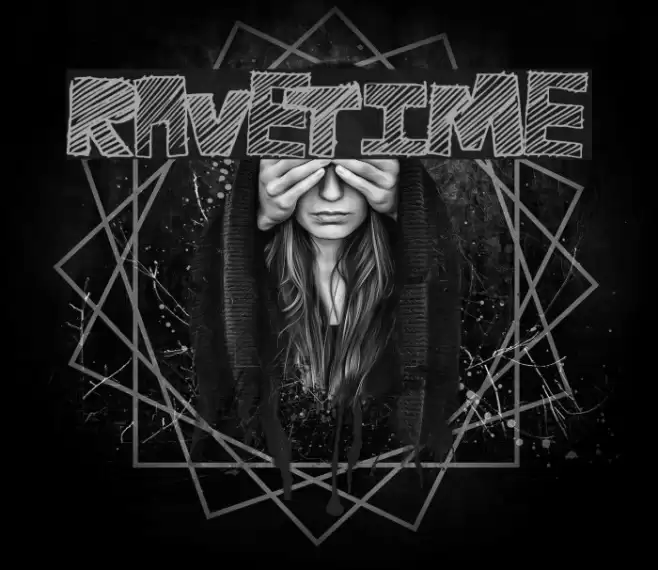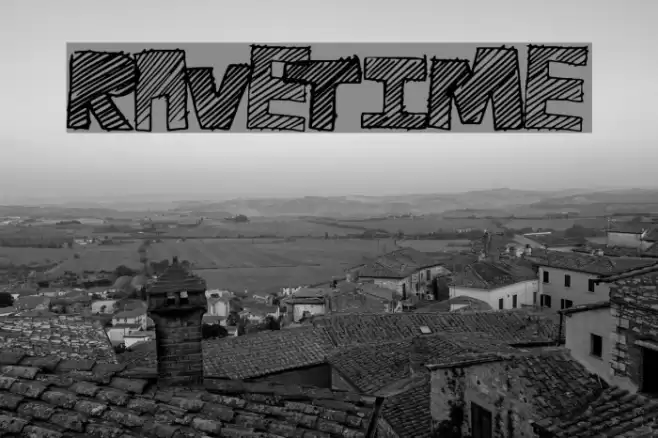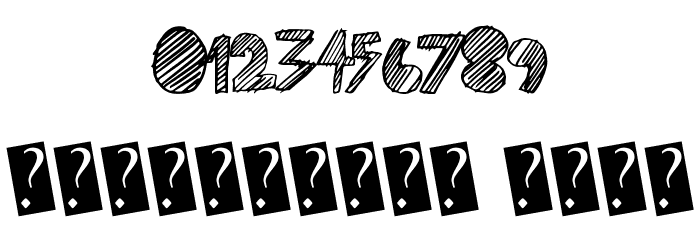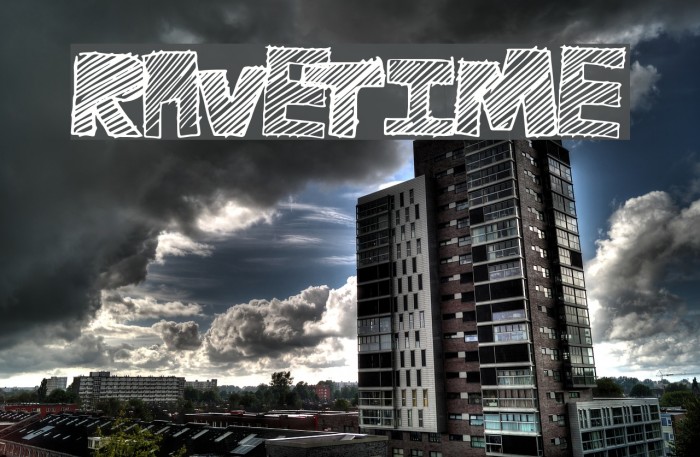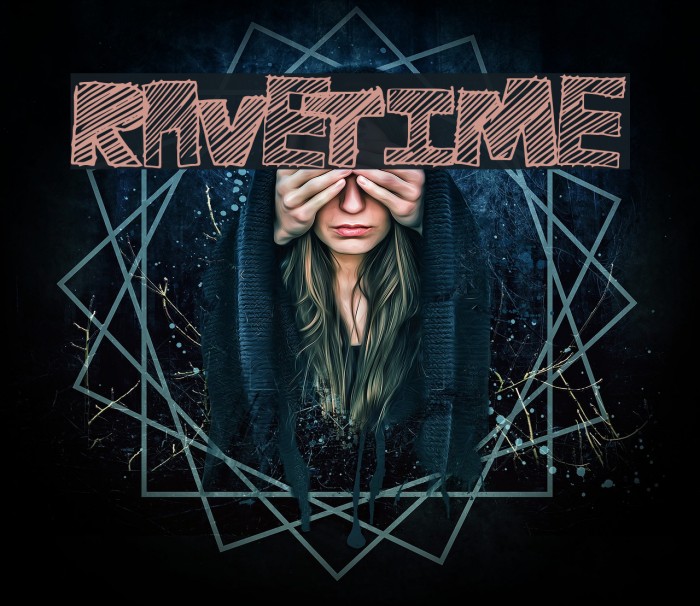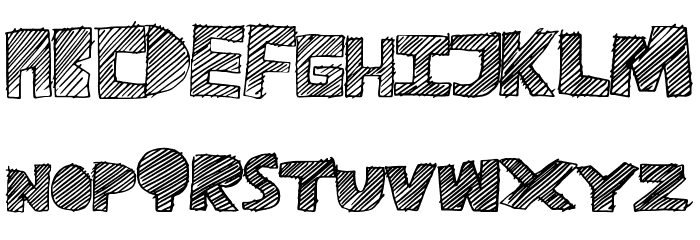
RaveTime Font
RaveTime Description
This font features a bold, hand-drawn style with a playful and energetic vibe. Each character is filled with diagonal lines, creating a textured appearance that adds depth and interest. The uppercase and lowercase letters maintain a consistent style, with exaggerated curves and angles that give the font a dynamic and lively feel. The numbers and special characters follow the same design principles, ensuring uniformity across all elements. This font is perfect for projects that require a fun and informal touch, making it ideal for creative and artistic endeavors.
A bold, hand-drawn font with textured, playful characters from Cartoon fonts.
- Proposed Projects: Ideal for posters, event flyers, children's book covers, and creative branding.
- Overall Style: Playful, Energetic
- Use Case: Headlines, Posters, Creative Branding